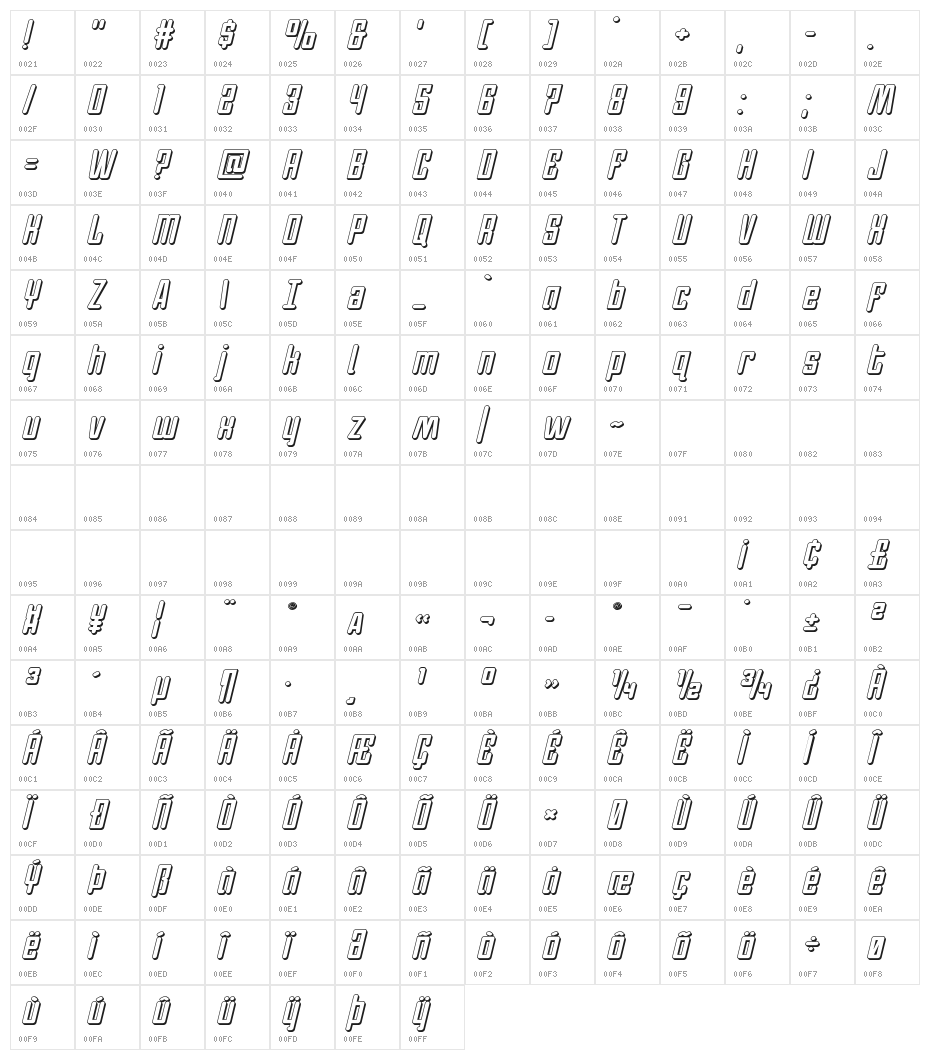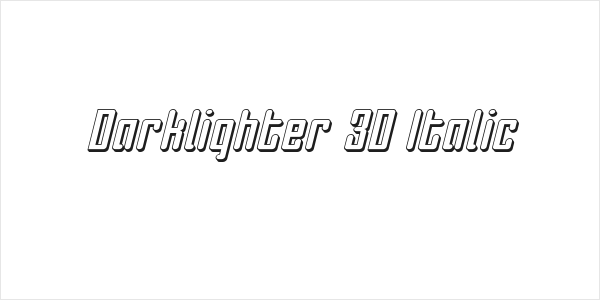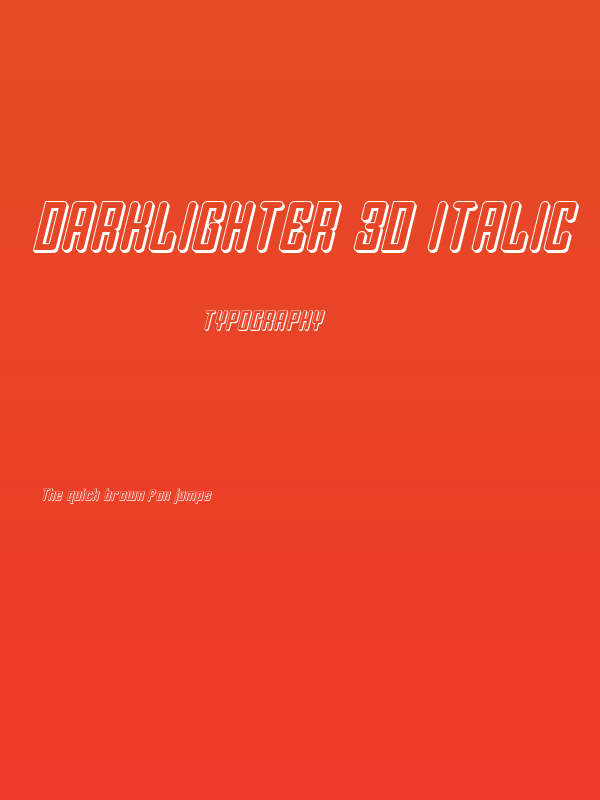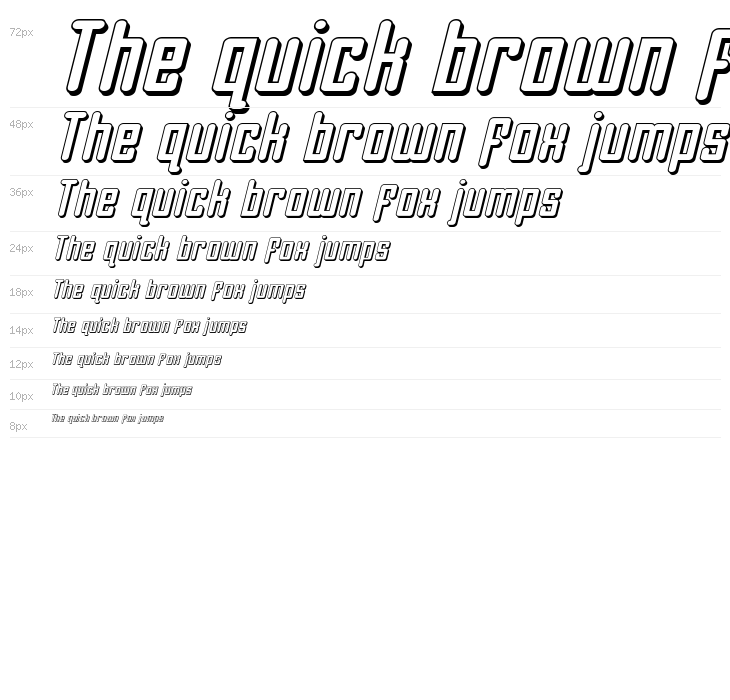
Darklighter 3D Italic Font
Darklighter 3D Italic Description
This font features a bold, three-dimensional design with an italic slant, creating a dynamic and eye-catching appearance. The characters are outlined with a shadow effect, giving them a sense of depth and movement. The uppercase and lowercase letters maintain a consistent style, with angular edges and a modern, futuristic look. The numbers and special characters are designed to match the overall aesthetic, making this font versatile for various creative applications. Its unique style is perfect for projects that require a bold statement or a modern twist.
Proposed ProjectsIdeal for posters, logos, video game graphics, and futuristic-themed designs.